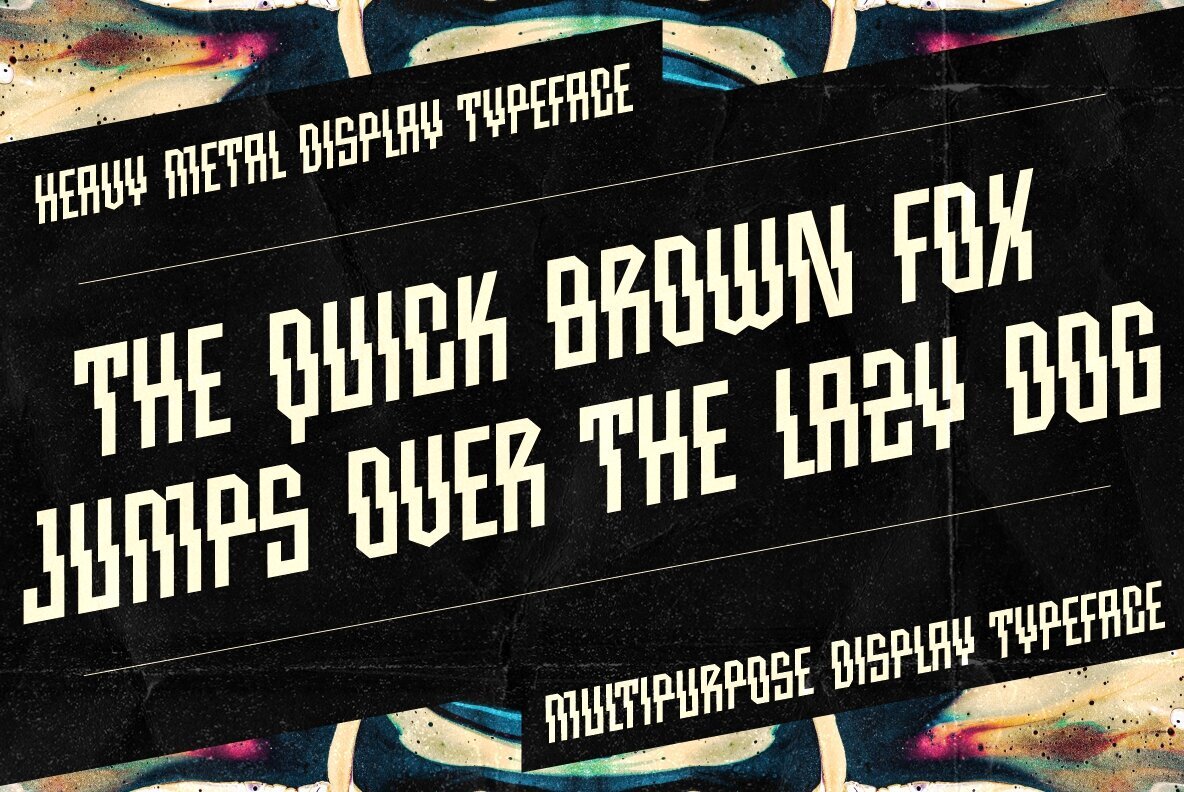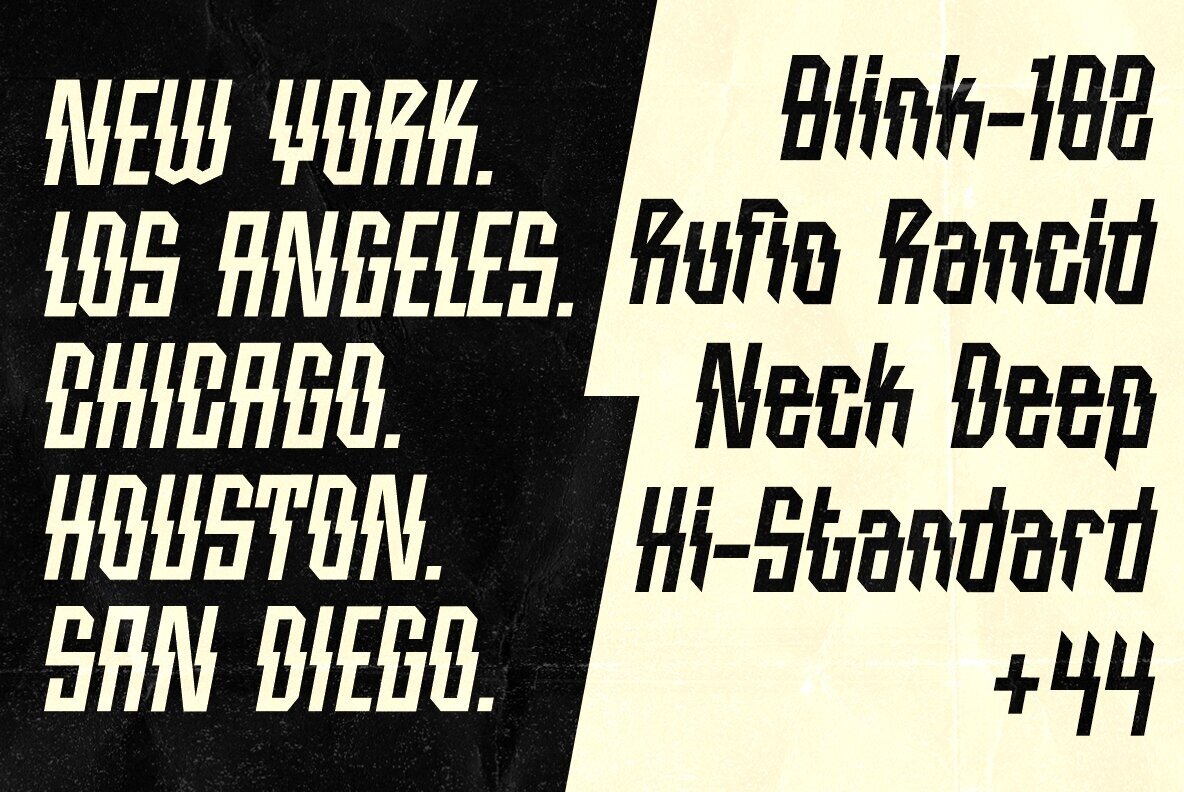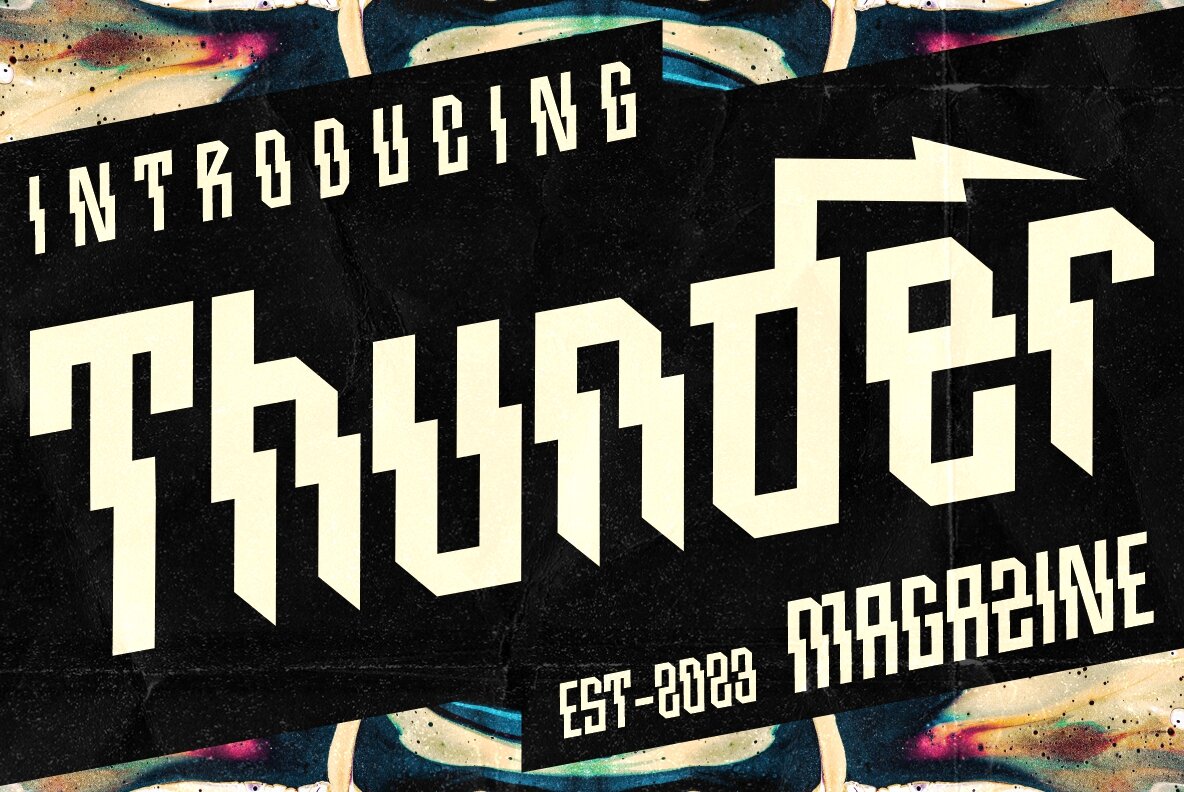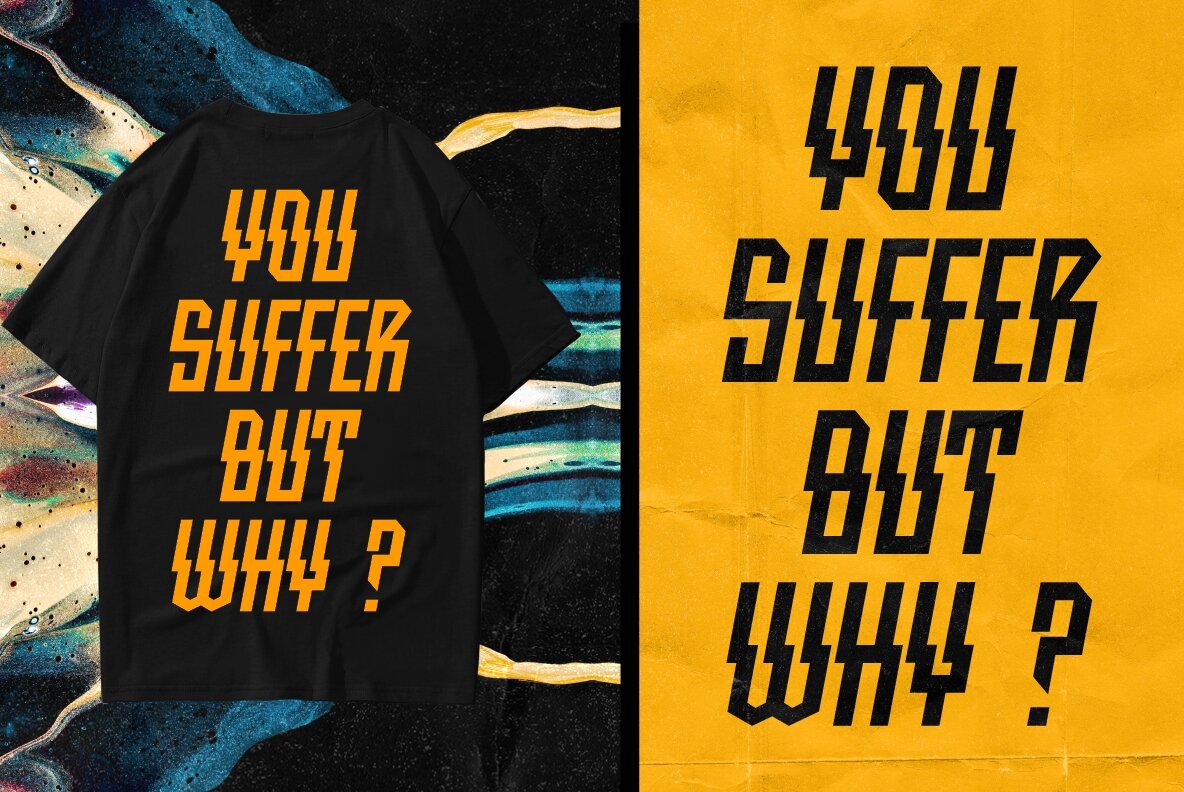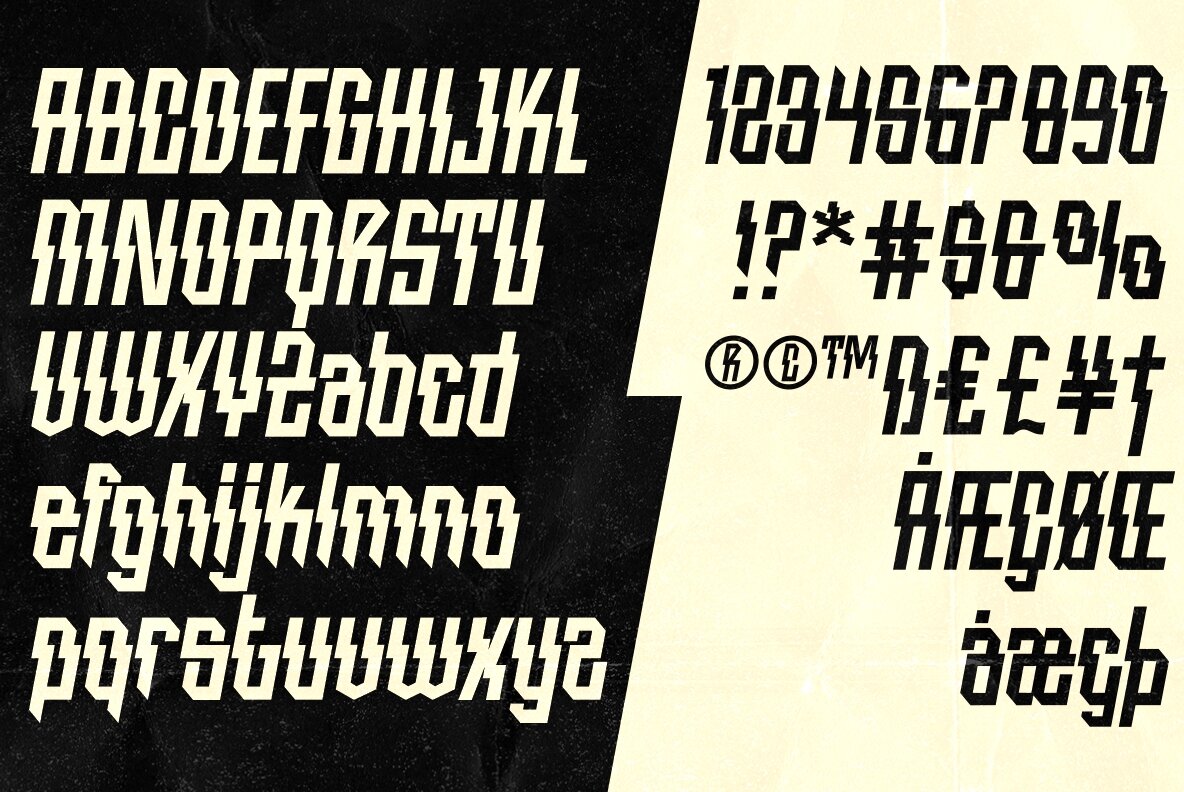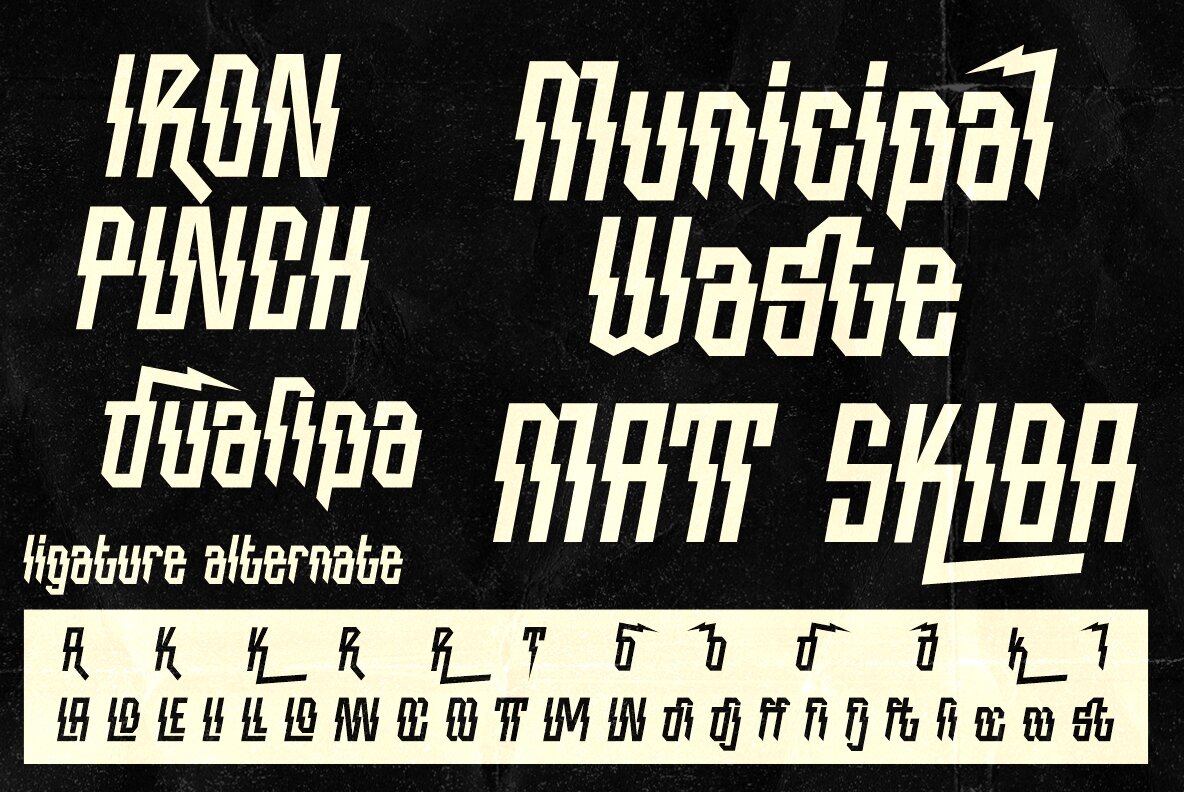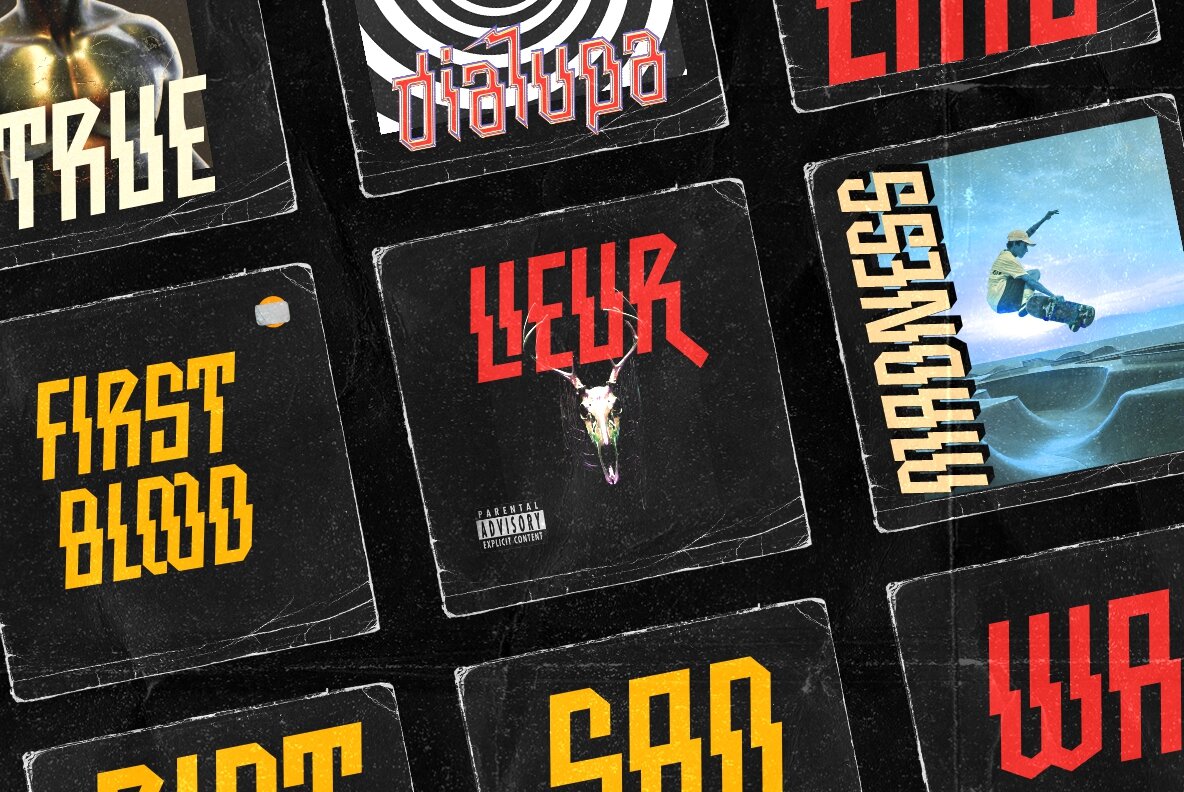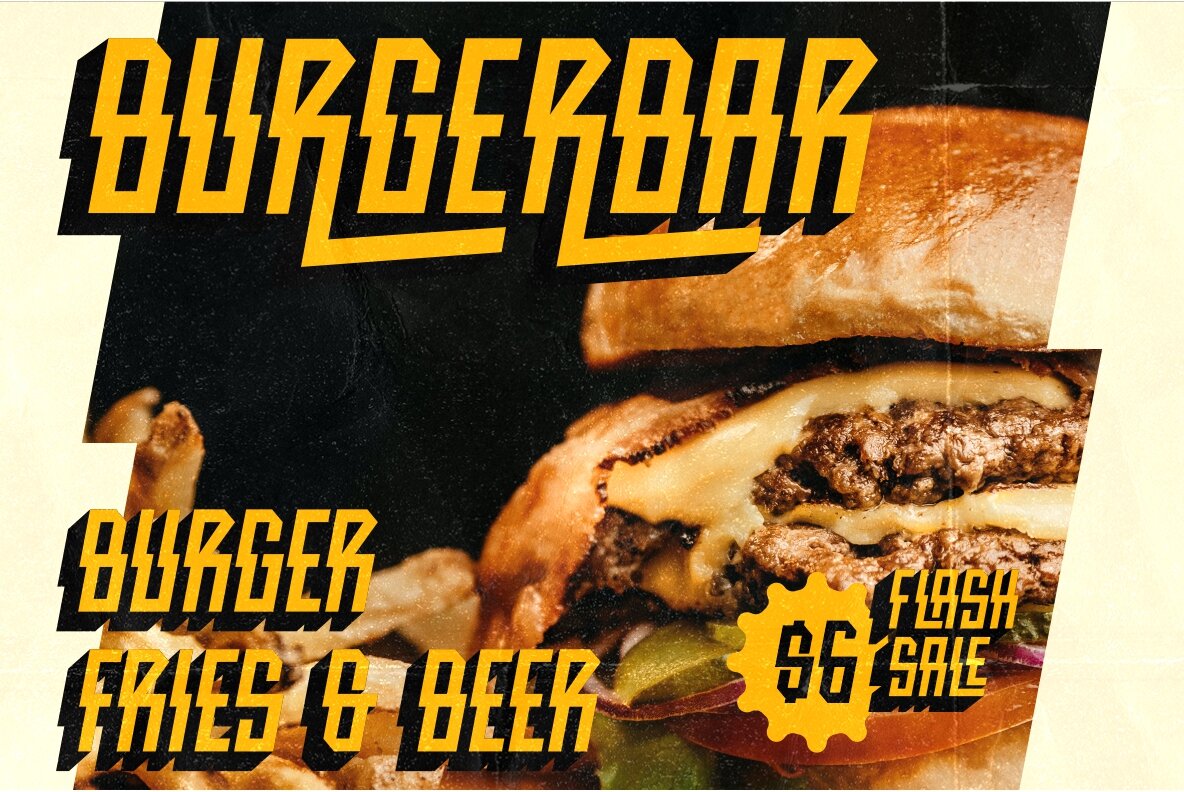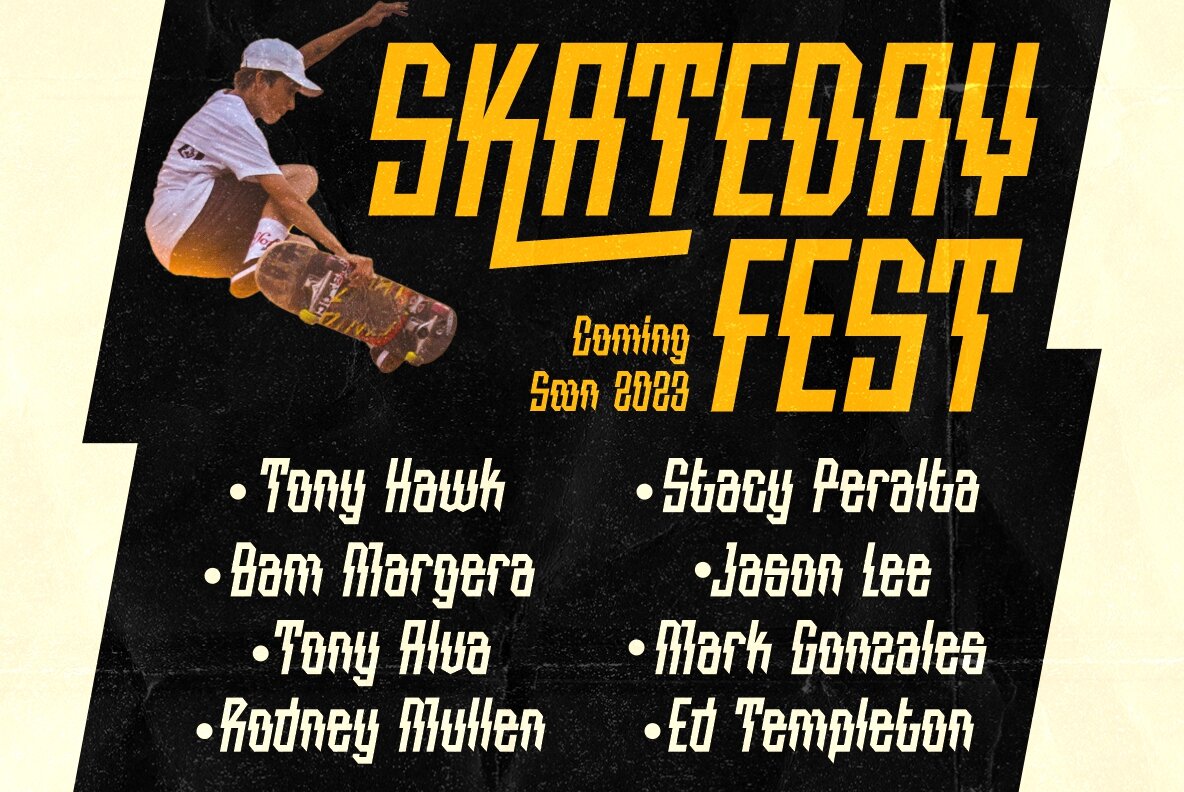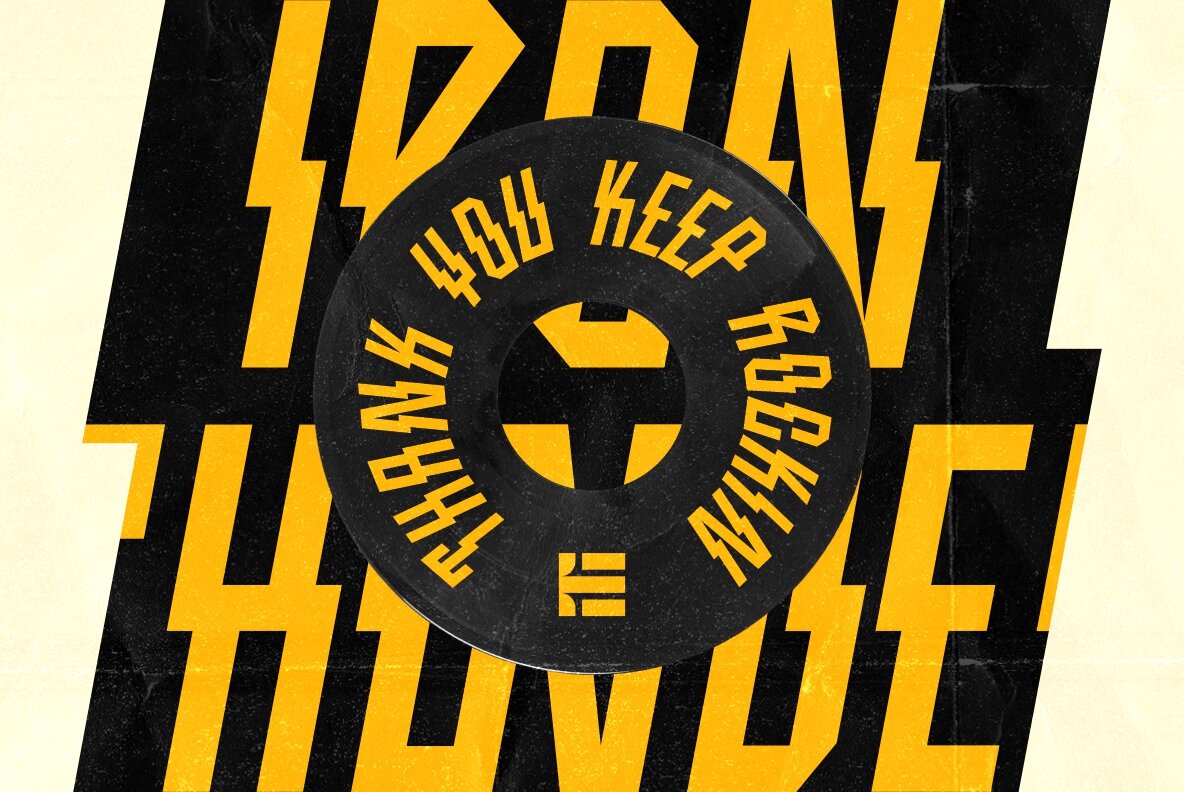
Iron Thunder Font
Iron Thunder Regular
Iron Thunder is an unique condensed display font inspired by thunderbolt. You can use this font in retro, vintage, and hipster designs. This font is perfect for a variety of projects, such as branding, poster displays, logo designs, magazines, headlines, stickers, and more.This font also has alternate and ligature features